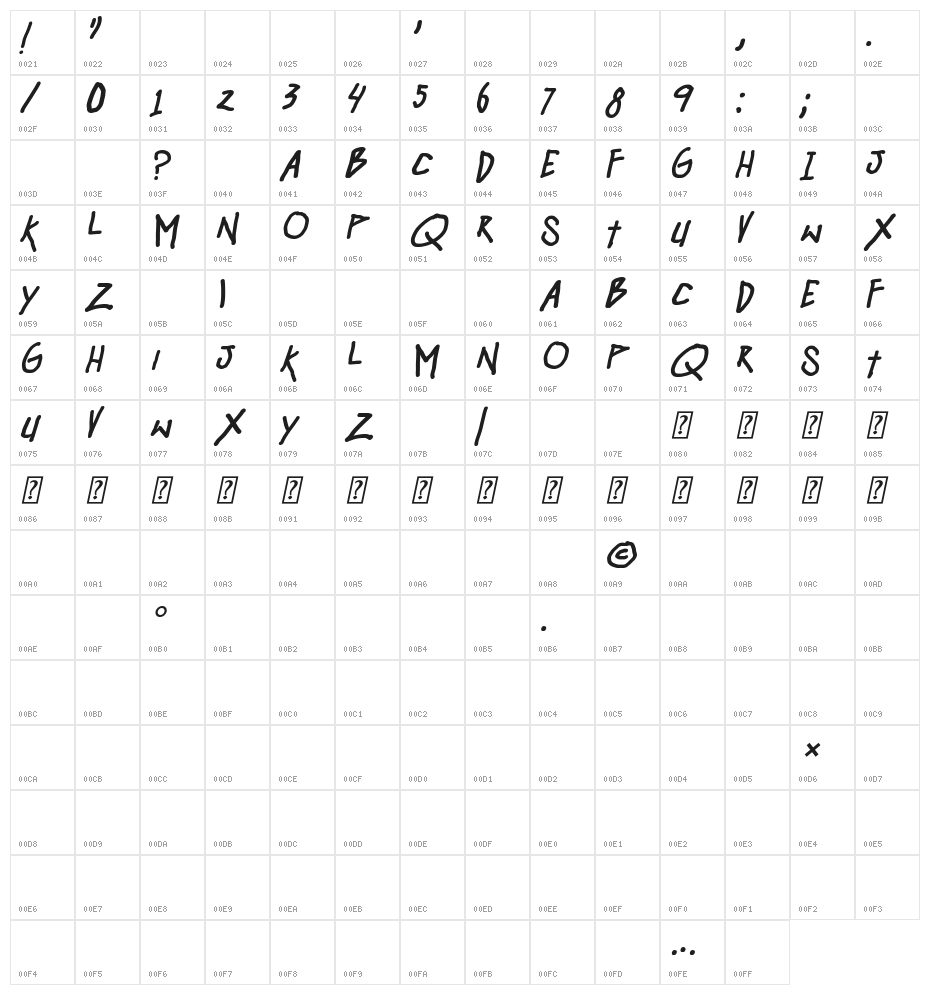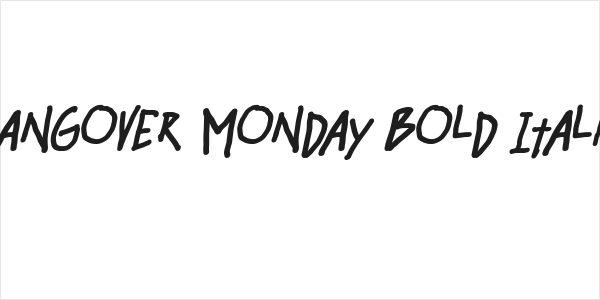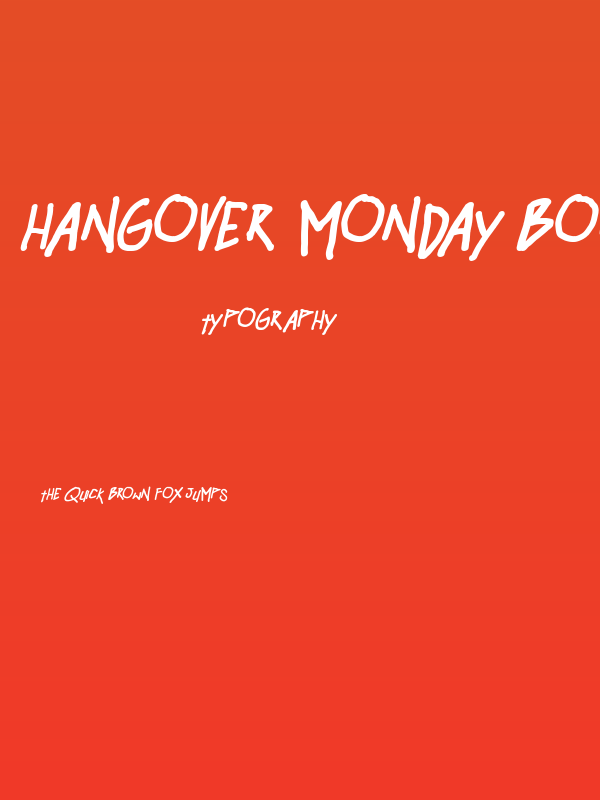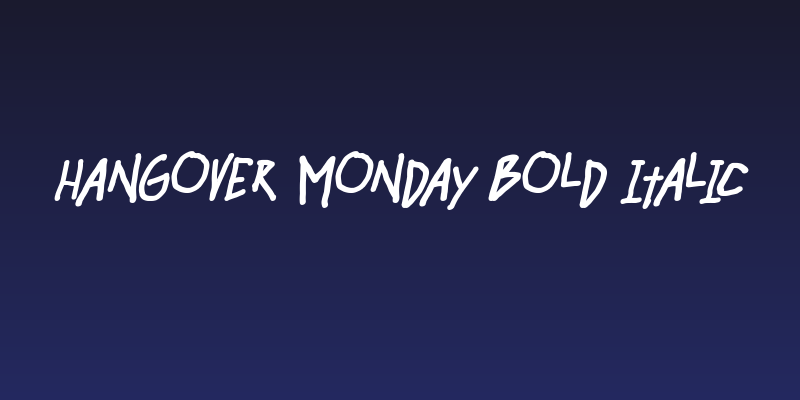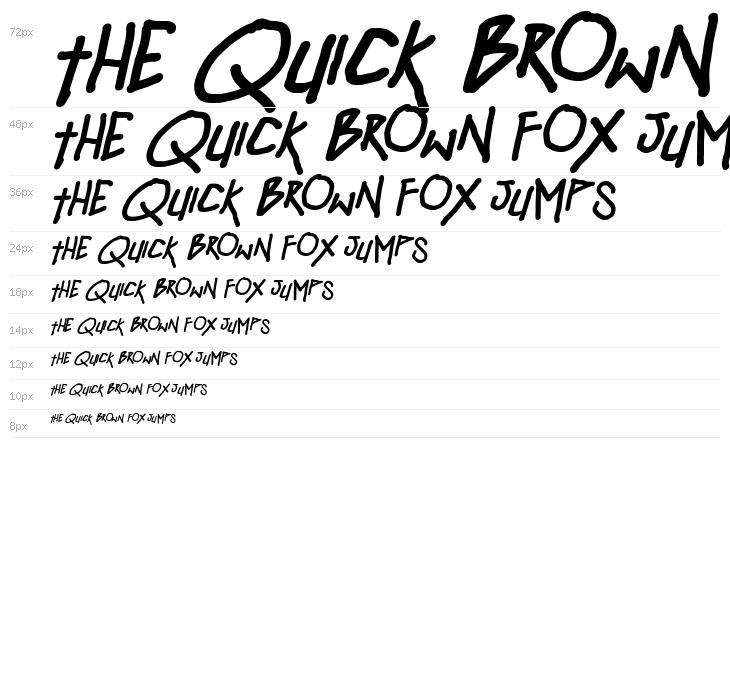
Hangover Monday Bold Italic Font
Hangover Monday Bold Italic Description
This font exudes a bold and energetic style, characterized by its thick, hand-drawn strokes and dynamic slant. The letters have a casual, yet impactful appearance, with a playful and slightly chaotic feel. The uppercase and lowercase letters maintain a consistent style, with exaggerated curves and angles that add to its expressive nature. Numbers and special characters follow the same bold and italicized design, ensuring a cohesive look across all elements. This font is perfect for projects that require a lively and informal touch.
| Proposed Projects | Ideal for posters, event flyers, comic book titles, and any design needing a lively, informal touch. |